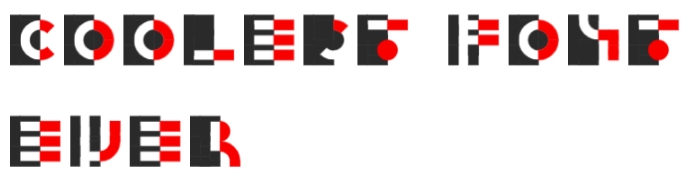
• Lessons in Composition, Vol. 1
Less of a typeface and more of a concept, Lessons in Composition, Vol. 1 (LC,V.1) was a fun experiment with a compossion based typeface and negative space. Strictly geometric, each character in LC,V.1 is made out of rectangles, circles, curves, and the subtraction of these shapes.
Notes:
LC,V.1 is set in #f90000 (red) and #2a2a2a (slightly off black). All of the white space is transparent.
A nice experiment exploring positive and negative space using minimal shapes.